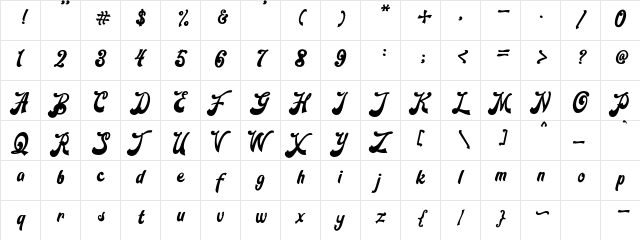
Blora Based Font Preview
Blora Based
Blora Based Font Details
| Style | Based |
| Foundry | Emanes Design. |
| Designer | Emanes Design. |
Design Context for Blora Typeface
Blora is a composed and adaptable typeface that performs quietly and consistently across a wide range of design contexts.